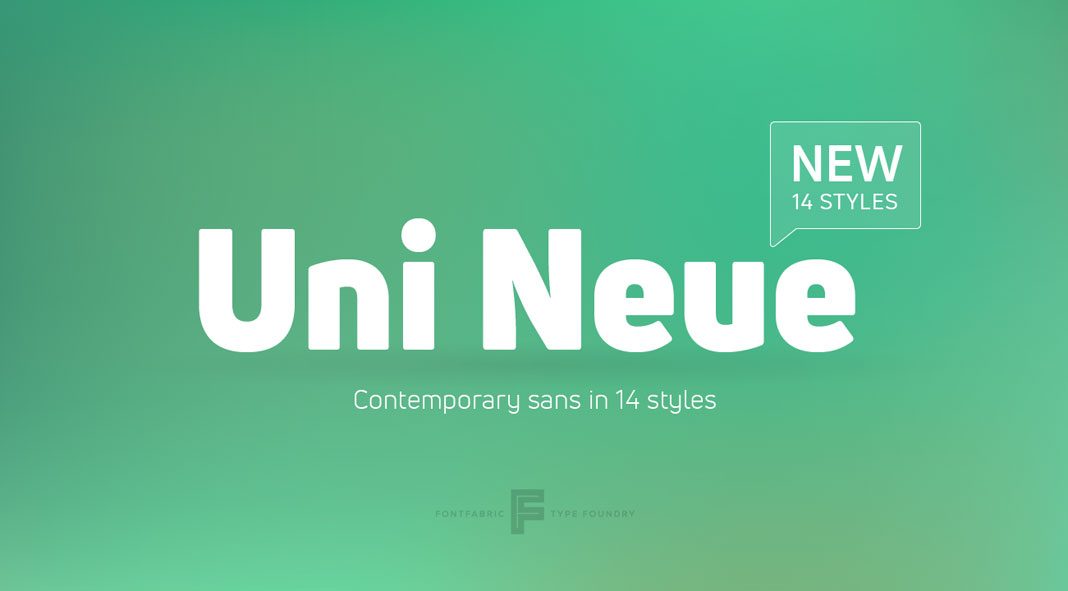
Uni Neue, а contemporary sans serif with distinctive characters, round edges, and a geometric feel.
Designed by Plamen Motev and Svetoslav Simov in 2016/2017, Uni Neue is the remake of Fontfabric’s popular Uni Sans typeface. The two designers have updated the typeface with some small details and major changes in terms of proportions, character widths and weights. Equipped with 14 styles consisting of 7 uprights plus 7 true Italics, the family is well suited for both print and screen. Uni Neue is а characteristic sans serif with a modern geometric touch. Its distinctive look is a great choice for branding projects as well as advertising, packaging, logo design, headlines, short text sections, and much more. Please read more below or click on the following link to get further information.
Uni Neue’s characteristic features.
The modern geometric design has been combined with round corners to give the typeface a more friendly look and feel. The 7 weights range from delicate Thin to a massive Black plus corresponding Italic versions for each weight. Thanks to the manually hinted characters, the typeface ensures great readability on print media and web. Uni Neue supports multiple languages including Latin, Cyrillic, and Greek type systems. The friendly but yet professional look conveys a modern and forward-thinking touch. For additional information on all characteristics and options, just follow the link below.